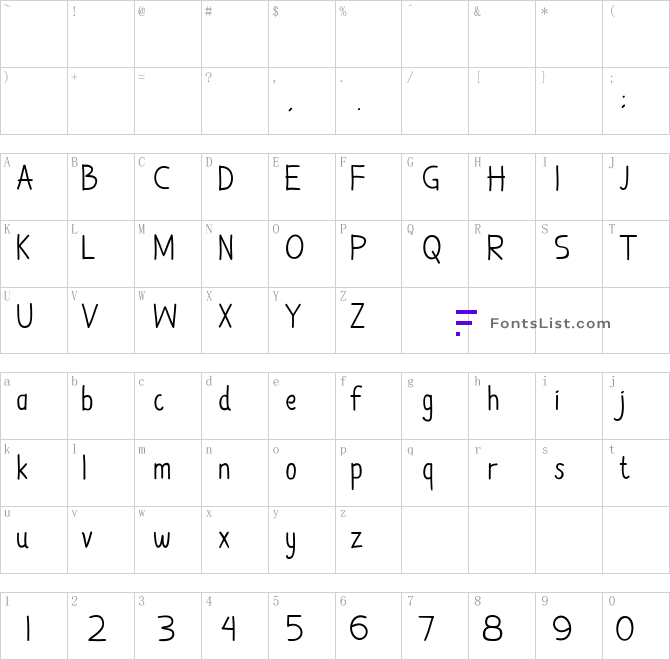
- Font Name:Damai Kpk Polri
Damai-Kpk-Polri.ttf is a very beautiful artistic font, Damai-Kpk-Polri.ttf is widely used in the design and printing of various books and pictures,Damai-Kpk-Polri.ttf has a strong visual impact,Damai-Kpk-Polri.ttf is a commonly used font in newspapers, magazines and books, and is used in posters, e-commerce Poster design, store design, logo design, font design and other fields.Damai-Kpk-Polri.